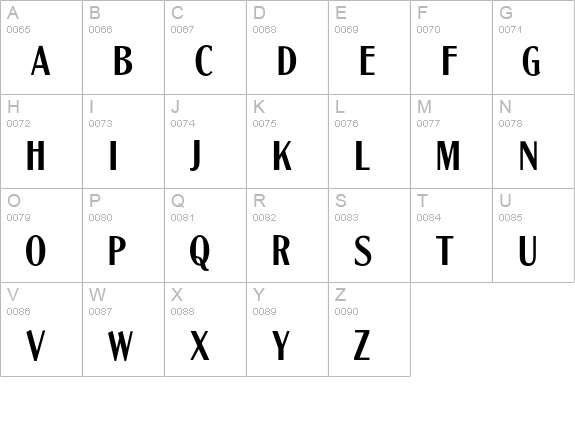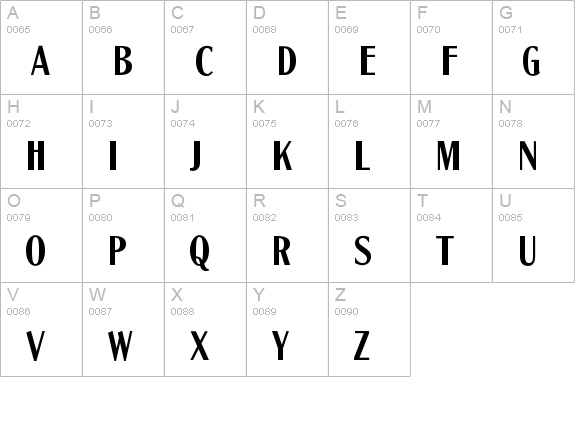
GlobeCondL Font Details
GlobeCondL is a versatile and elegant font that exudes a sense of sophistication and modernity. With its sleek and streamlined design, this typeface is perfect for a wide range of projects, from branding and advertising to editorial and web design. The clean lines and balanced proportions of GlobeCondL make it a versatile choice for both display and text settings. What sets GlobeCondL apart is its ability to convey a sense of professionalism and style while remaining highly legible and readable. Whether used in headlines, body text, or as part of a logo or branding material, GlobeCondL shines with its timeless appeal and contemporary flair. And the best part? GlobeCondL is completely free to download at FontsMarket.com, making it accessible to designers, students, and enthusiasts alike. Don't miss out on the opportunity to enhance your projects with the timeless beauty of GlobeCondL. Download it today and elevate your designs to new heights.